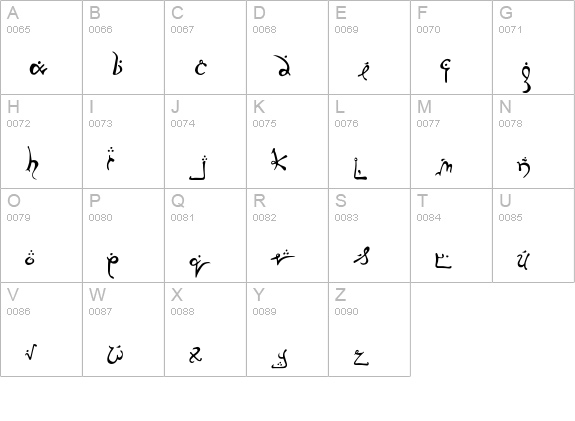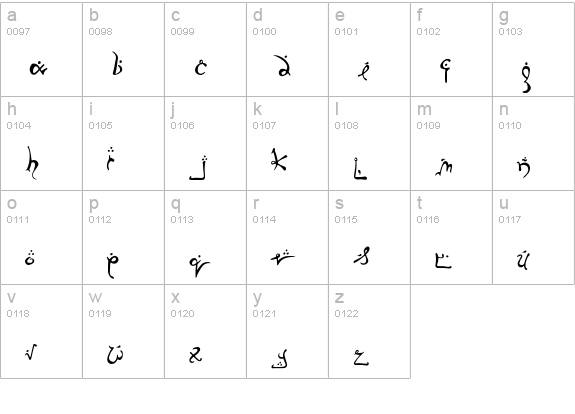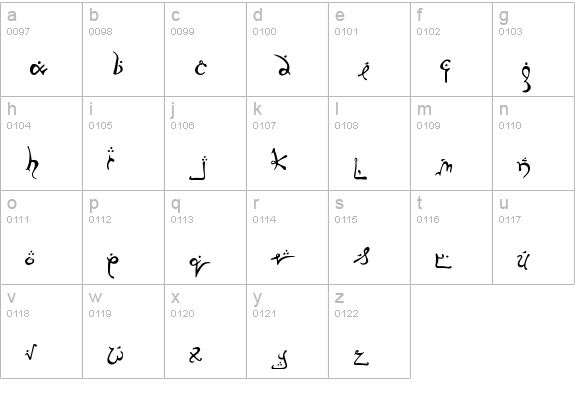
Running Smobble Font Details
Running Smobble font is a whimsical and playful typeface that will add a touch of fun to your designs. With its quirky and unique letterforms, this font is perfect for creating eye-catching posters, greeting cards, and social media graphics. The flowing curves and dynamic strokes give Running Smobble a dynamic and energetic feel that will make your text stand out. Best of all, Running Smobble font is available for free download at FontsMarket.com. Whether you're a graphic designer, content creator, or hobbyist, you can easily access this font to add a creative flair to your projects. Don't miss out on this fantastic opportunity to enhance your designs with the charming and delightful Running Smobble font. Download it today and let your creativity run wild!